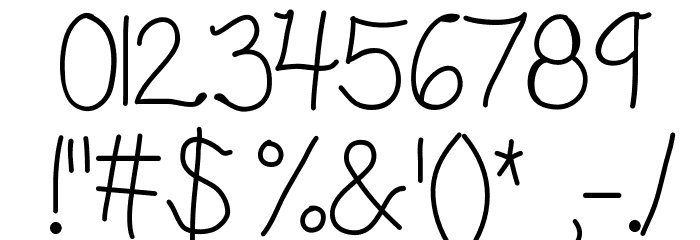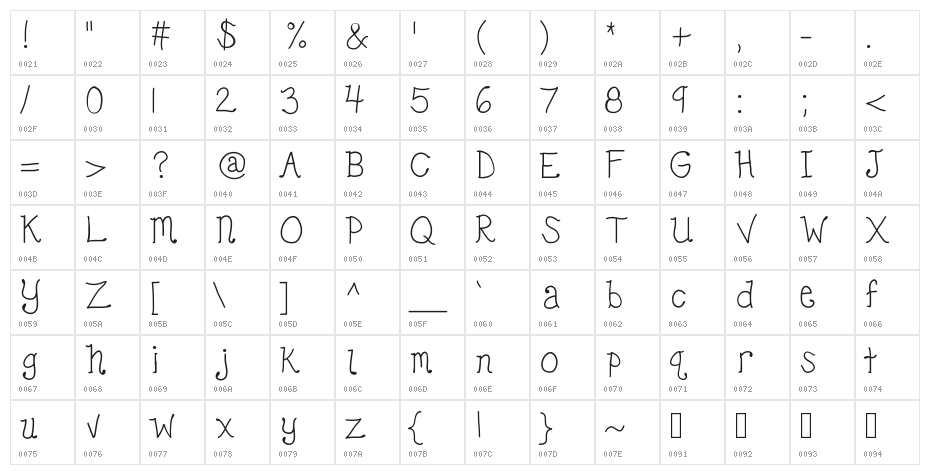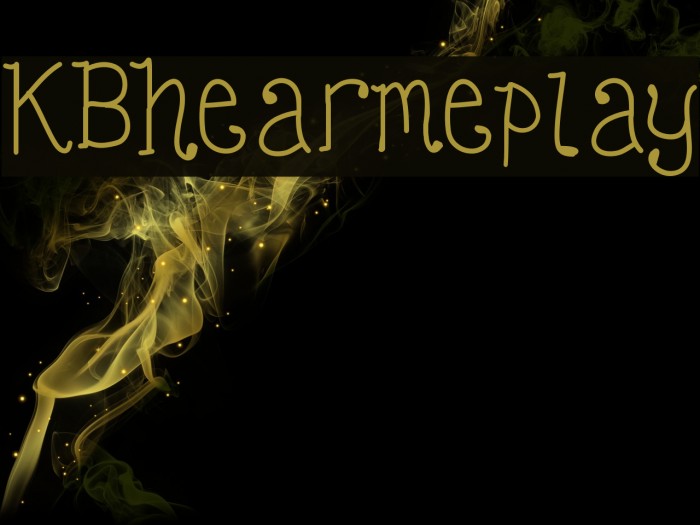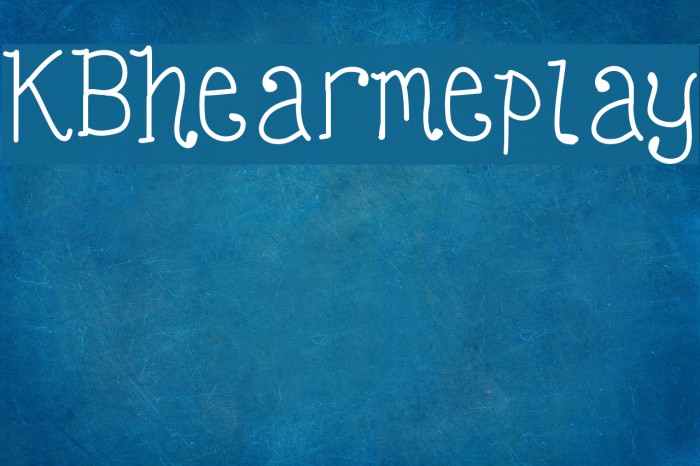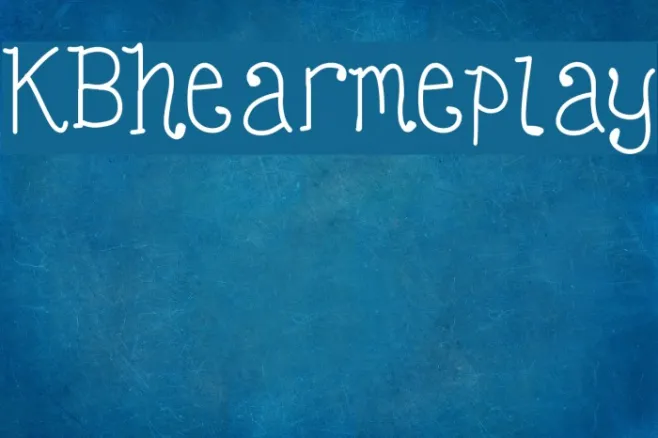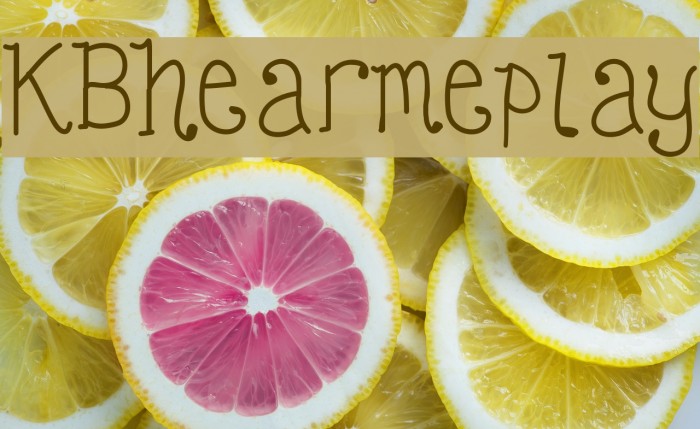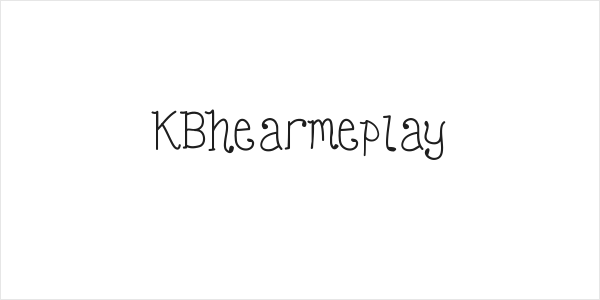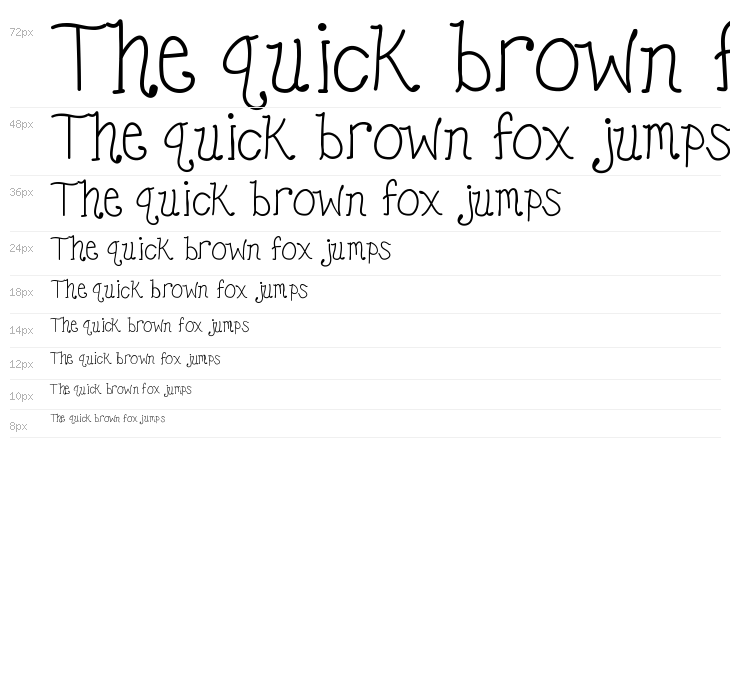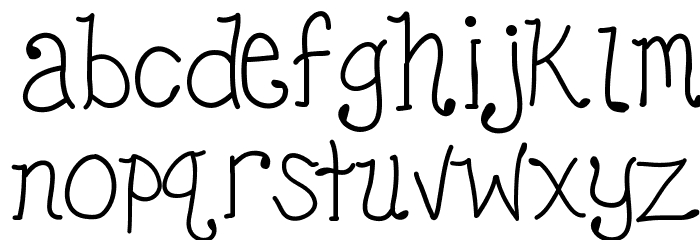
KBhearmeplay Font
KBhearmeplay Description
This font features a playful and whimsical design, characterized by its hand-drawn appearance. The letters have a casual, informal style with rounded edges and slight variations in stroke thickness, giving it a friendly and approachable feel. The uppercase and lowercase letters maintain a consistent style, with the lowercase letters exhibiting a slightly more exaggerated curvature. The numerals and special characters complement the overall aesthetic, maintaining the same playful and informal tone. This font is ideal for projects that require a touch of personality and creativity.
| Proposed Projects | Ideal for children's books, greeting cards, playful branding, and creative projects. |